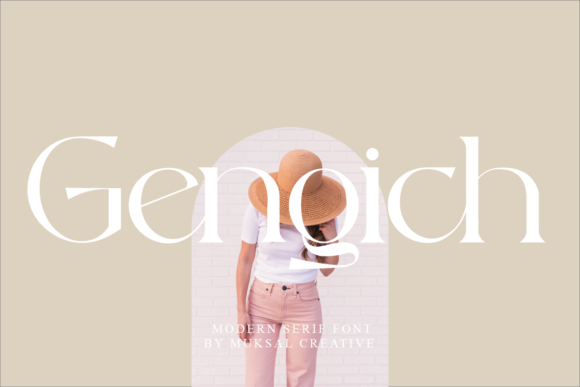
The Perfect Typography Touch
Have you ever been working on a design project, pouring over countless options for the perfect font, only to find yourself stuck in a sea of sameness? You want something that truly stands out, that adds a unique touch to your work. That’s where the Gengich Font comes in – a modern, wavy serif font that’s sure to elevate your designs to the next level.
This versatile font boasts a clean, thin, and smooth vibe that’s perfect for adding a touch of sophistication to any design. With its PUA encoding, you’ll have access to a wide range of glyphs and ligatures, giving you the freedom to get creative and take your designs to new heights.
Genghis Font Key Features
- Unique Characteristics: The font features a unique blend of traditional and modern elements, with intricate details and ornaments that set it apart from other fonts.
Gengich Font Review
I’ve had the chance to work with the Gengich Font, and I’d like to share my honest thoughts about it.
- Unique aesthetic: Gengich Font has a distinct, futuristic vibe that sets it apart from more traditional fonts.
- Good legibility: Even at smaller font sizes, Gengich remains easy to read, making it suitable for a wide range of applications.
- Extensive language support: Gengich Font covers a large number of languages, including some less common ones.
- Weight limitations: Gengich Font has a relatively limited number of weights, which may not be suitable for projects that require a wide range of font styles.
- Italic and bold variations: While the font has some italic and bold variations, they may not be as polished as some other fonts in the same category.
Gengich Font is a solid choice for projects that require a unique, futuristic aesthetic. While it may have some limitations, it’s a great option for those looking for a font that’s a bit more experimental. With some additional development, I think Gengich Font could become a top contender in the font market.
The Gengich Font is ideal for use in graphic design, logo creation, and typography-based projects. Some common use cases include:
- Creating a bold, eye-catching logo
- Designing a typography-based poster or flyer
- Adding a unique touch to a business card or resume
Alternatives to Genghis Font for Designers
Montserrat is a sans-serif font designed by Julieta Ulanovsky. It’s a modern, urban font perfect for titles, headings, and body text in digital and print media. Montserrat is more geometric and sleek compared to Genghis Font, which has a more rough and medieval feel. Use Montserrat for projects that require a clean, modern aesthetic.
Playfair Display is a luxurious, elegant serif font designed by Claus Eggers Sørensen. It’s ideal for high-end branding, invitations, and luxury packaging. Playfair Display is more refined and sophisticated compared to Genghis Font, which has a more rugged and adventurous feel. Use Playfair Display for projects that require a touch of luxury and sophistication.